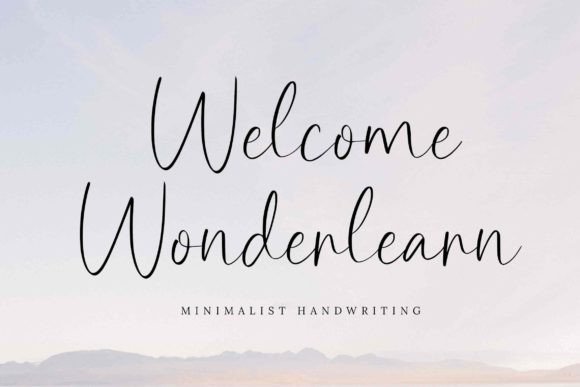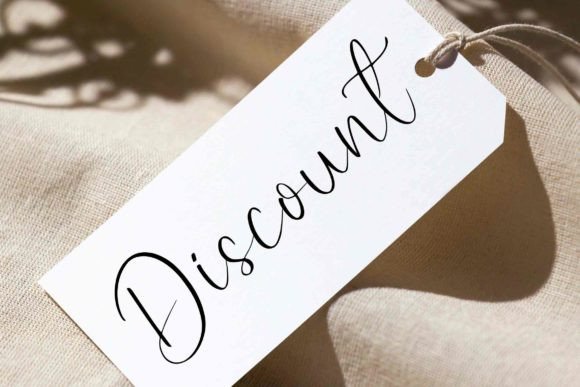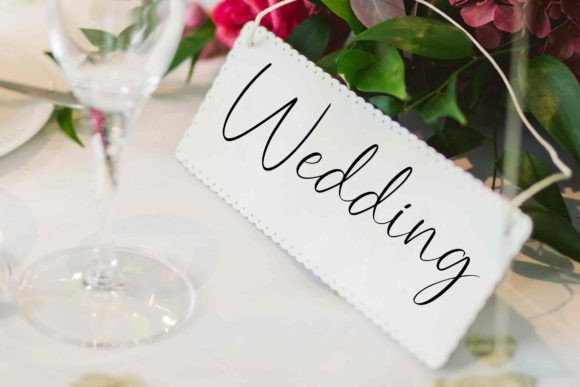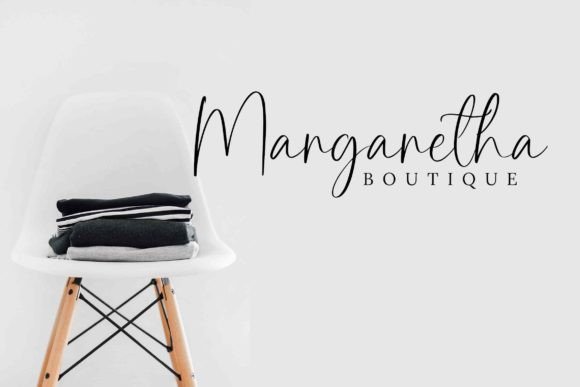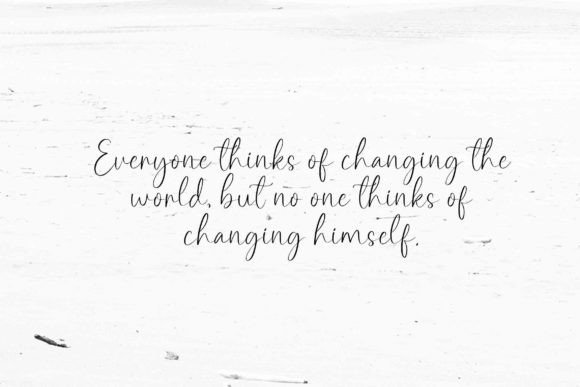
About Welcome Wonderlearn Font
Introducing “Welcome Wonderlearn” – Your Relaxed, Elegant, and Beautiful Font for Effortless Designs!
“Welcome Wonderlearn” is not just a font; it’s a relaxed, elegant, and beautiful typeface that exudes a casual yet refined touch, making it perfect for a wide range of design projects. Whether you’re creating greeting cards, wedding materials, branding elements, social media graphics, or more, “Welcome Wonderlearn” is the ideal choice for infusing effortless beauty into your work.
With “Welcome Wonderlearn,” you gain access to a font that effortlessly combines relaxation with elegance. Its beautiful letter shapes add a sense of grace and charm to your text, ensuring that your content stands out with an air of sophistication.
Imagine using “Welcome Wonderlearn” to design heartfelt greeting cards that convey warmth and sentiment, create wedding materials that capture the essence of romance, craft a brand identity that reflects a relaxed yet refined style, or enhance your social media graphics with a touch of effortless beauty. This font’s relaxed and elegant design will make your designs truly captivating.
Whether you’re an experienced designer or someone looking to create beautiful designs with ease, “Welcome Wonderlearn” is your go-to font for embracing beauty and casual elegance.